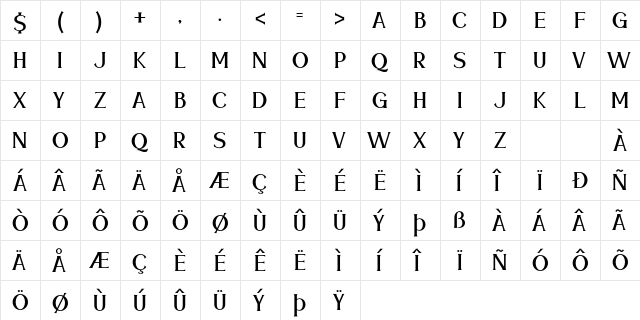
Meramoon Regular
| Foundry | Patria Ari Typestudio |
| Designer | Patria Ari Wijonarko |
Design Context for Meramoon Typeface
Meramoon is a composed and adaptable typeface that performs quietly and consistently across a wide range of design contexts.